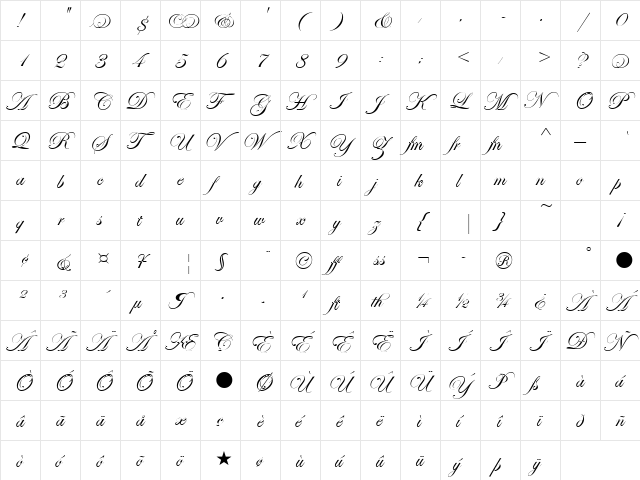
Esenin script Two Regular
Design Context for Esenin script Two Typeface
Esenin script Two flows with the natural rhythm of handwritten lettering, making it ideal for designs that call for warmth and personal expression.
Font Pairing: Combine Esenin script Two with a simple geometric sans for maximum contrast — the tension between flowing curves and clean structure is a classic typographic pairing.
Pro Tip: Use Esenin script Two for short runs of text — names, titles, or taglines. Extended body copy in script faces tires the eye quickly.